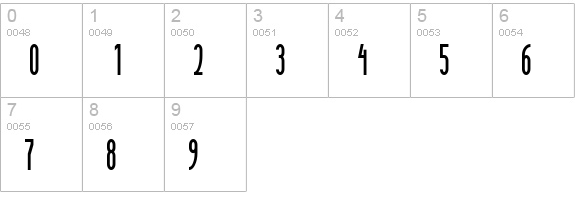
Pfeiffer Tall Font Details
Pfeiffer Tall is an exceptional font that effortlessly exudes elegance and sophistication. With its sleek and slender letterforms, this typeface captivates the eye and adds a touch of refinement to any design project. The distinguishing feature of Pfeiffer Tall is its impressive height, which gives it a commanding presence and a sense of grandeur. Each letter is meticulously crafted, with delicate curves and precise angles, resulting in a harmonious balance between legibility and style. Whether used for headlines, titles, or logos, Pfeiffer Tall commands attention with its bold yet graceful appearance. Its versatility allows it to be used in a variety of contexts, from fashion editorials to luxury branding. One of the most remarkable things about Pfeiffer Tall is that it is freely available to download at FontsMarket.com. This means that designers, creatives, and typophiles alike can access this remarkable font without any cost, making it an invaluable resource for those seeking to elevate their designs without breaking the bank. Pfeiffer Tall is a true testament to the power of typography to elevate and enhance visual communication. Its timeless aesthetic and accessibility make it a must-have for any designer's toolkit. So why wait? Download Pfeiffer Tall for free at FontsMarket.com and let your creativity soar to new heights.